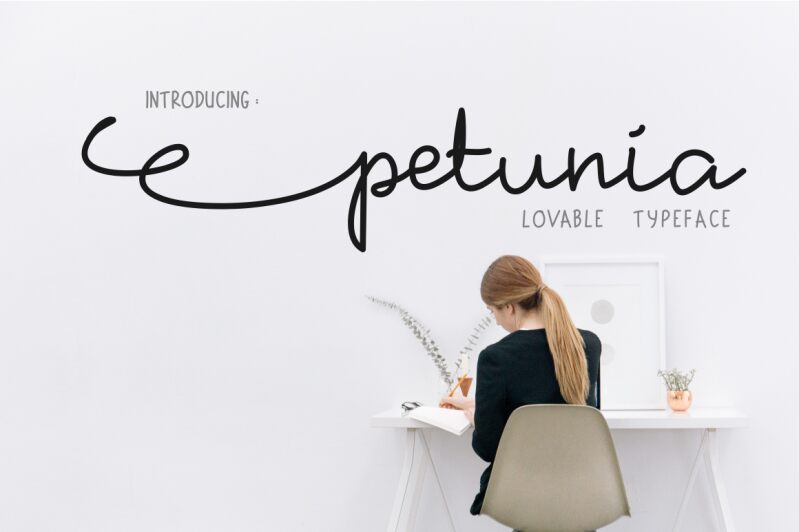
Petunia is a delightful, handwritten font that exudes a charming, natural elegance. Its lively strokes and organic curves give the text a graceful, handcrafted feel, evoking a sense of warmth and personality. The font's uneven line widths and soft, imperfect edges lend it a distinct, artisanal quality, making it an excellent choice for a variety of design applications, from rustic wedding invitations to whimsical branding.
With its versatility and distinctive style, Petunia can seamlessly transition between formal and casual contexts, bringing a touch of effortless sophistication to print materials, digital designs, and more. Its playful yet refined aesthetic makes it well-suited for projects that aim to capture a sense of artisanal craftsmanship and authentic expression.
Petunia